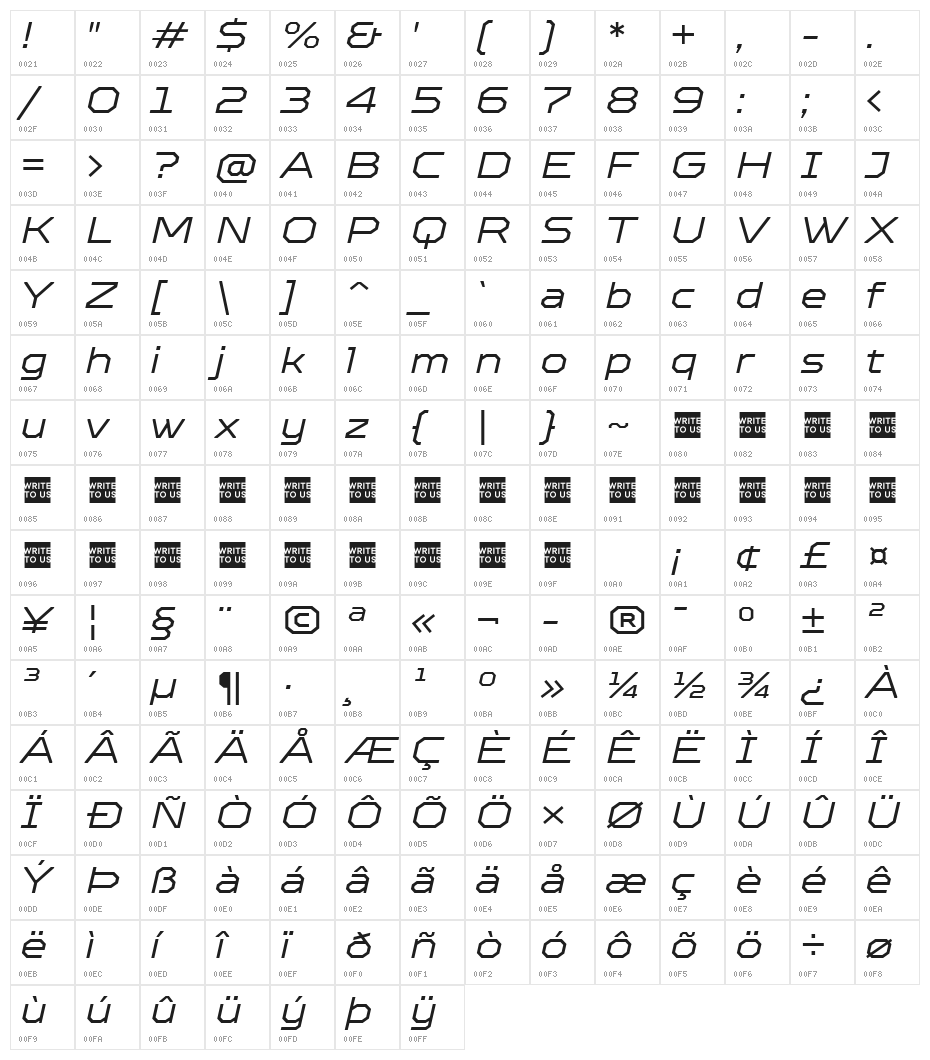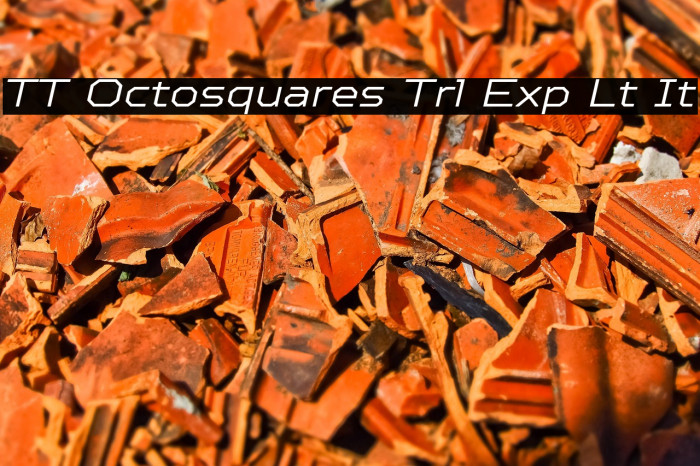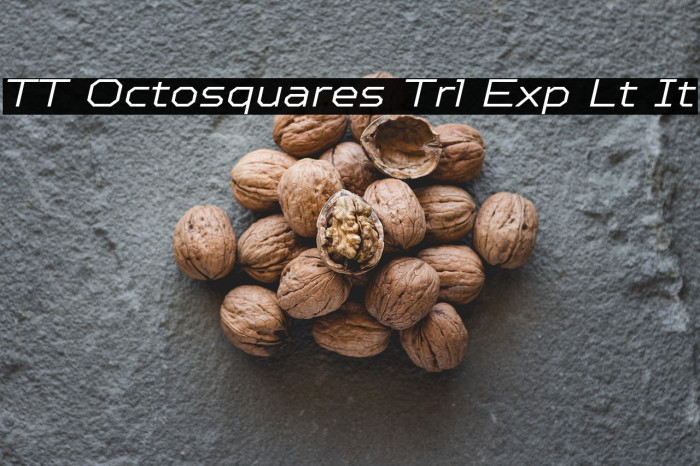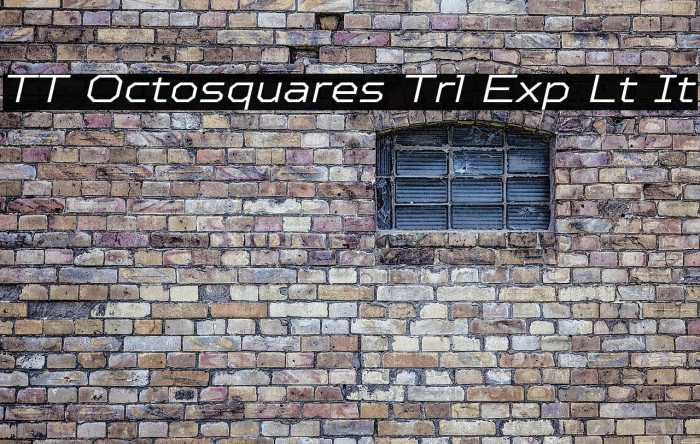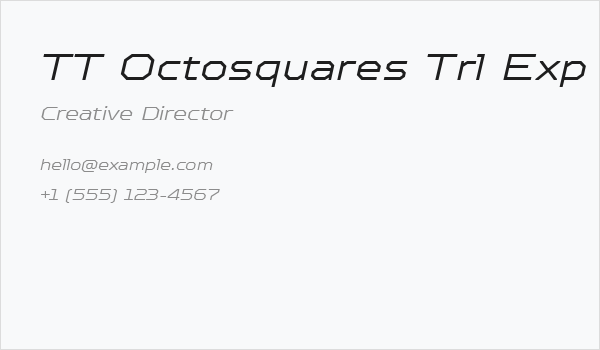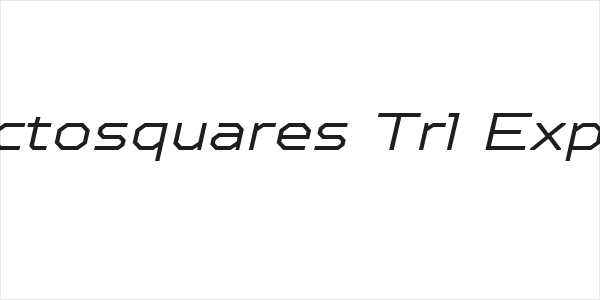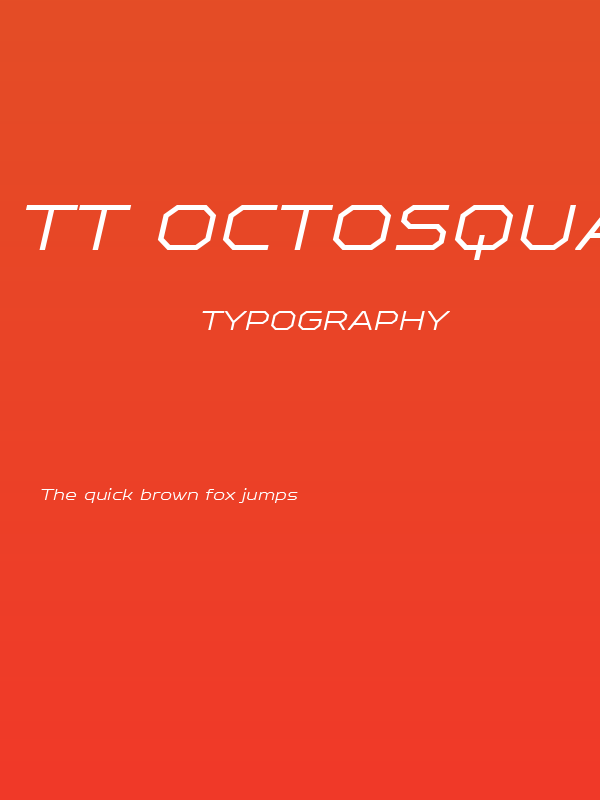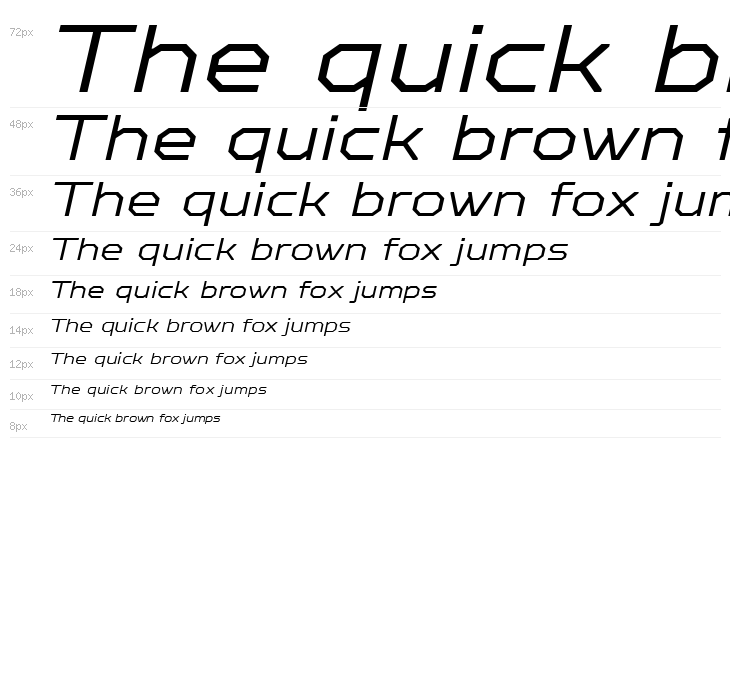
TT Octosquares Trl Exp Lt It Font
TT Octosquares Trl Exp Lt It Description
This font features a geometric and angular design, characterized by its octagonal shapes and sharp edges. The letters are slightly slanted, giving it an italicized appearance, while maintaining a structured and modern aesthetic. The font is lightweight, with consistent stroke thickness that provides a clean and crisp look. The expanded width of the characters adds to its futuristic and tech-inspired style, making it stand out in digital and print media. The character spacing is normal, ensuring readability while preserving its unique design elements.
| Overall Style | Modern, Futuristic |
| Use Case | Logos, Headlines, Digital Interfaces |
| Proposed Projects | Ideal for tech branding, digital interfaces, modern posters, and futuristic design projects. |